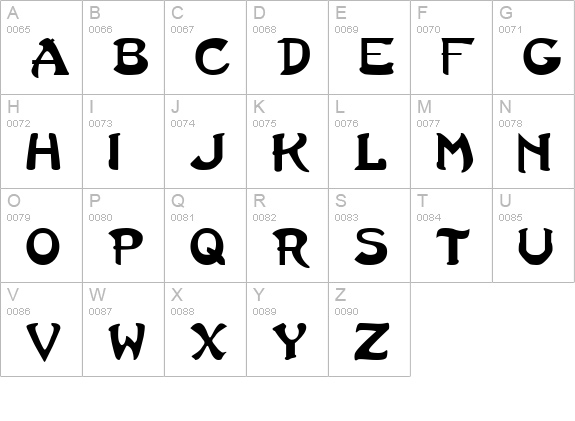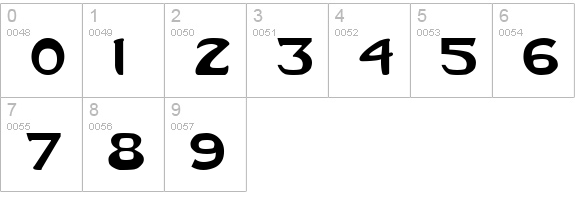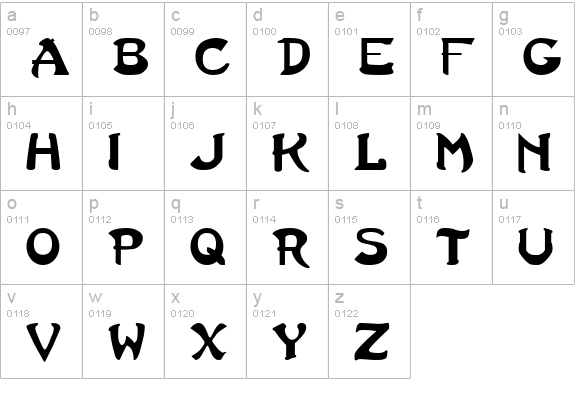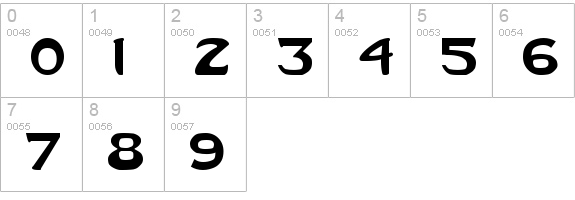
Last Ninja is a mesmerizing font that exudes strength, power, and an air of mystery. With its sharp edges and bold strokes, this font is perfect for creating captivating headlines, powerful logos, and striking designs. Last Ninja is not only visually captivating, but it is also versatile and adaptable. It can effortlessly transition from a modern, futuristic vibe to a classic, vintage look, making it suitable for a wide range of design projects. One of the best things about Last Ninja is that it is completely free. Yes, you read that right! This incredible font is freely available to download at FontsMarket.com. Whether you are a professional designer, a student, or an enthusiast looking to add some creativity to your projects, Last Ninja is a must-have font that won't cost you a dime. Designed with meticulous attention to detail, Last Ninja is crafted to provide a seamless and smooth reading experience. Its high legibility ensures that your message will be conveyed effectively, no matter the size or format. Last Ninja is a font that demands attention and leaves a lasting impression. Its unique and bold design will make your projects stand out from the crowd, leaving viewers captivated and intrigued. So, why wait? Download Last Ninja now, for free, and unlock the limitless possibilities it offers. Let your creativity flow and watch as Last Ninja takes your designs to new heights. Get ready to unleash your inner ninja with this remarkable font!